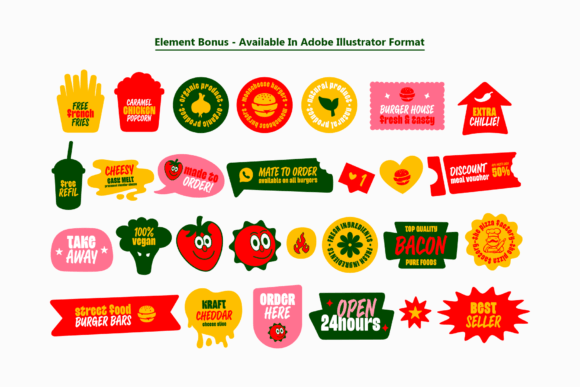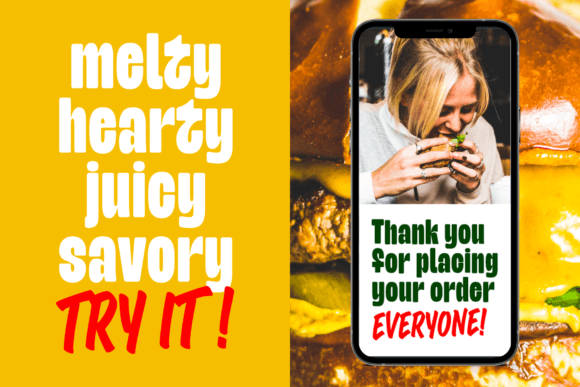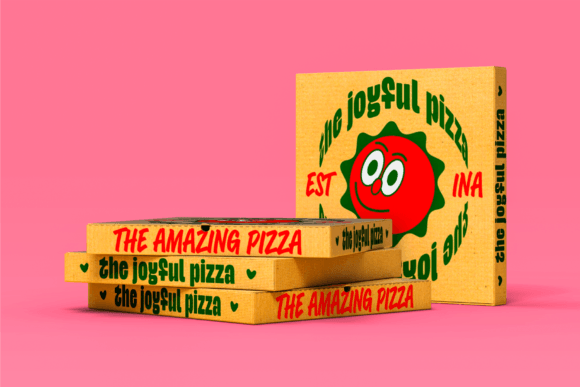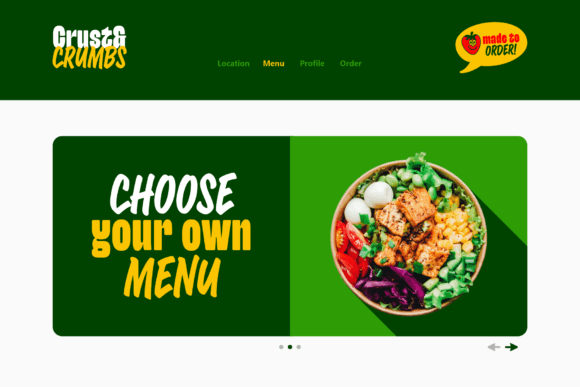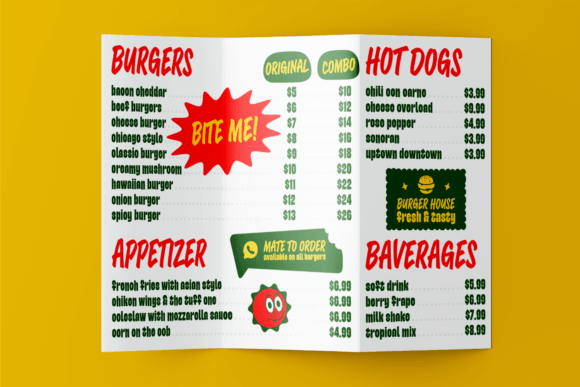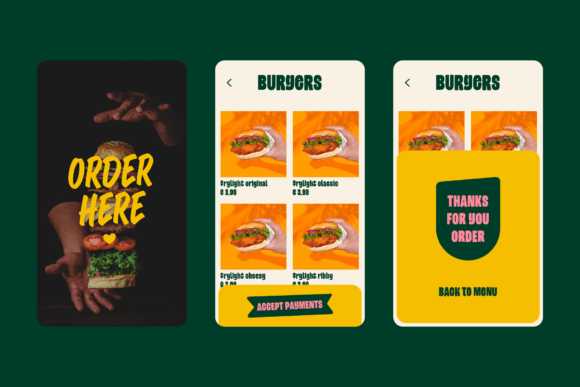
Discover the Perfect Pairing for Your Culinary Creations: Crust and Crumbs Font Duo
Are you a food blogger, restaurant owner, or a passionate home cook looking for the perfect fonts to elevate your culinary creations? Look no further! Introducing the Crust and Crumbs Foodie Font Duo, a harmonious blend of rounded sans-serif and expressive brush fonts designed to add a delectable touch to your food-related designs.
Why Choose Our Foodie Font Duo?
With the Crust and Crumbs Font Duo, you get two unique fonts that complement each other perfectly, offering a dynamic combination of styles to suit your culinary needs. Here are just a few reasons why this font duo stands out:
Diverse Styles
This duo offers a clean and modern look with the rounded sans-serif font, perfect for headings, titles, and highlighting key information. The expressive brush font adds a handcrafted feel, ideal for adding a personal touch to your designs. Whether you’re creating a recipe blog, a restaurant menu, or a food-themed website, this font duo provides the versatility you need.
Handcrafted Appeal
The brush font style in the Crust and Crumbs Font Duo adds a personal and artisanal touch to your culinary creations, making your designs feel homemade and authentic. This handcrafted appeal is perfect for food bloggers, cookbook authors, and chefs who want to convey a sense of warmth and personality in their branding.
Culinary Aesthetics
Elevate your food-related content with fonts that capture the essence of fine dining and delectable dishes. The Crust and Crumbs Font Duo is designed to evoke the sights, smells, and tastes of culinary excellence, making it perfect for food enthusiasts who want to showcase their creations in style.
Food Branding
Establish a unique and memorable brand identity for your food-related business, blog, or website with the Crust and Crumbs Font Duo. The combination of clean and modern sans-serif and expressive brush fonts provides a distinctive look that will set you apart from the competition and leave a lasting impression on your audience.
Recipe-Ready
Enhance your recipes with fonts that make them not only easy to follow but also visually appealing. The Crust and Crumbs Font Duo is perfect for recipe blogs, cookbooks, and food websites, allowing you to present your recipes in a clear, stylish, and appetizing way.
Using the Crust and Crumbs Font Duo in Your Designs
Using the Crust and Crumbs Font Duo in your designs is easy and straightforward. Here are a few tips to get you started:
- Pairing Fonts: Use the rounded sans-serif font for headings and titles, and the brush font for body text or to add a decorative touch to your designs.
- Customization: Experiment with different font sizes, colors, and textures to create a unique look that reflects your brand or personal style.
- Versatility: Use the Crust and Crumbs Font Duo across various platforms, including social media, websites, blogs, and print materials, to maintain consistency in your branding.
The Crust and Crumbs Font Duo is the perfect pairing for your culinary creations, offering a harmonious blend of styles that will elevate your food-related designs to the next level. Whether you’re a food blogger, restaurant owner, or passionate home cook, this font duo provides the versatility, handcrafted appeal, and culinary aesthetics you need to create stunning designs that will leave a lasting impression on your audience.